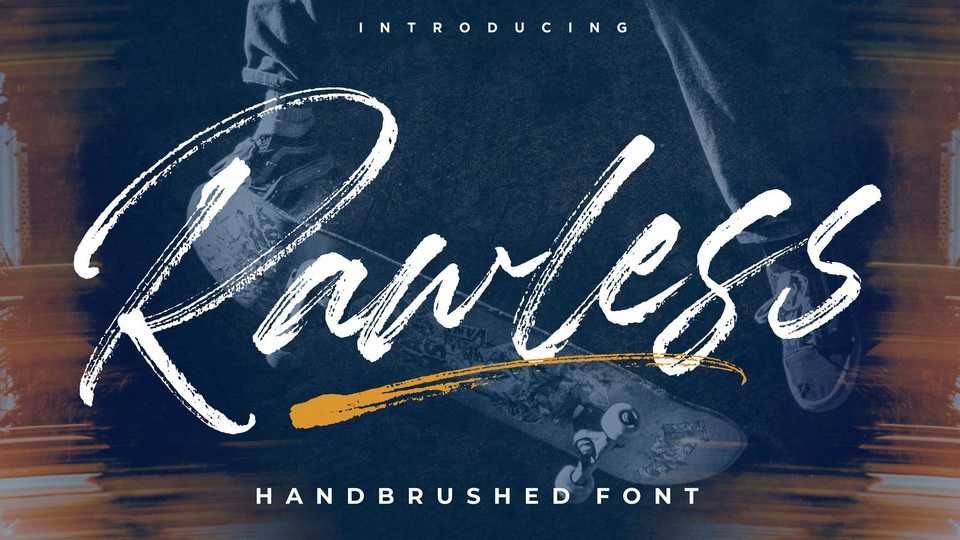
Download Rawless font, a natural handbrushed script. Rawless is perfect for product packaging, logo, invitation, branding project, label, photography, watermark, social media post, wedding, or just used to express words above the background.
Designer: Balpirick Studio